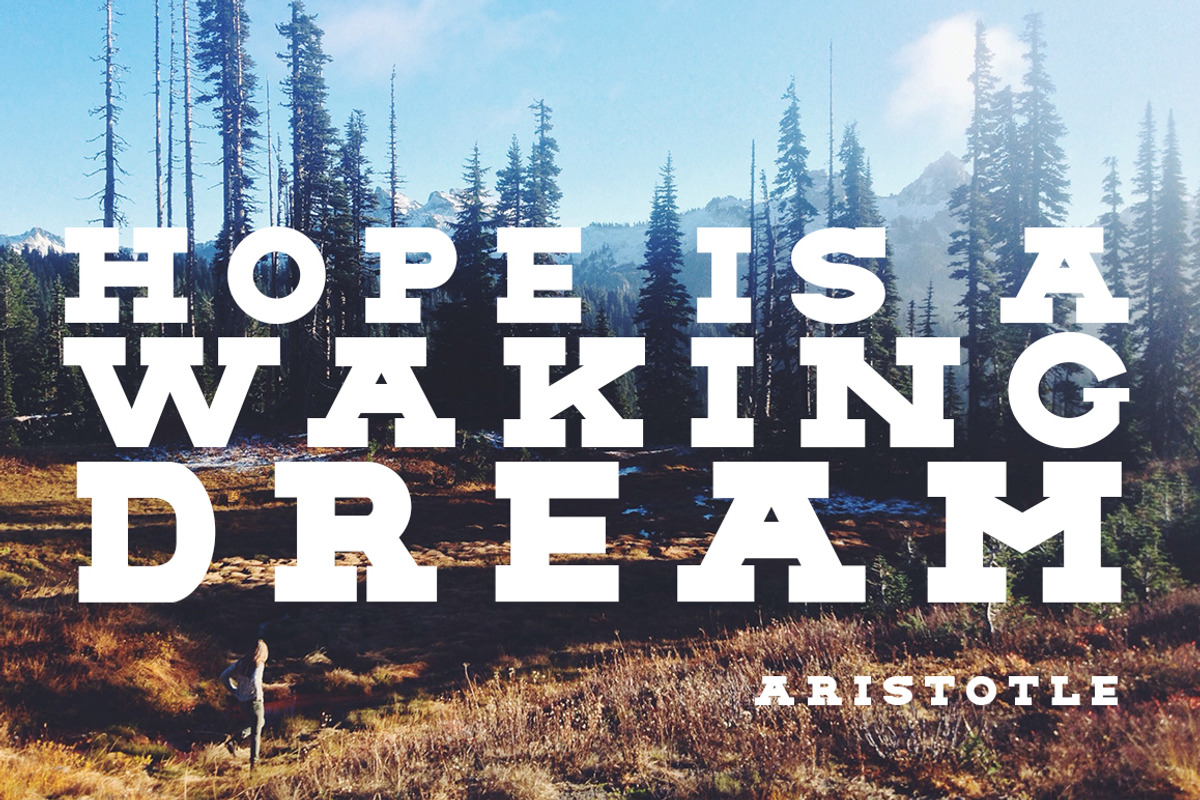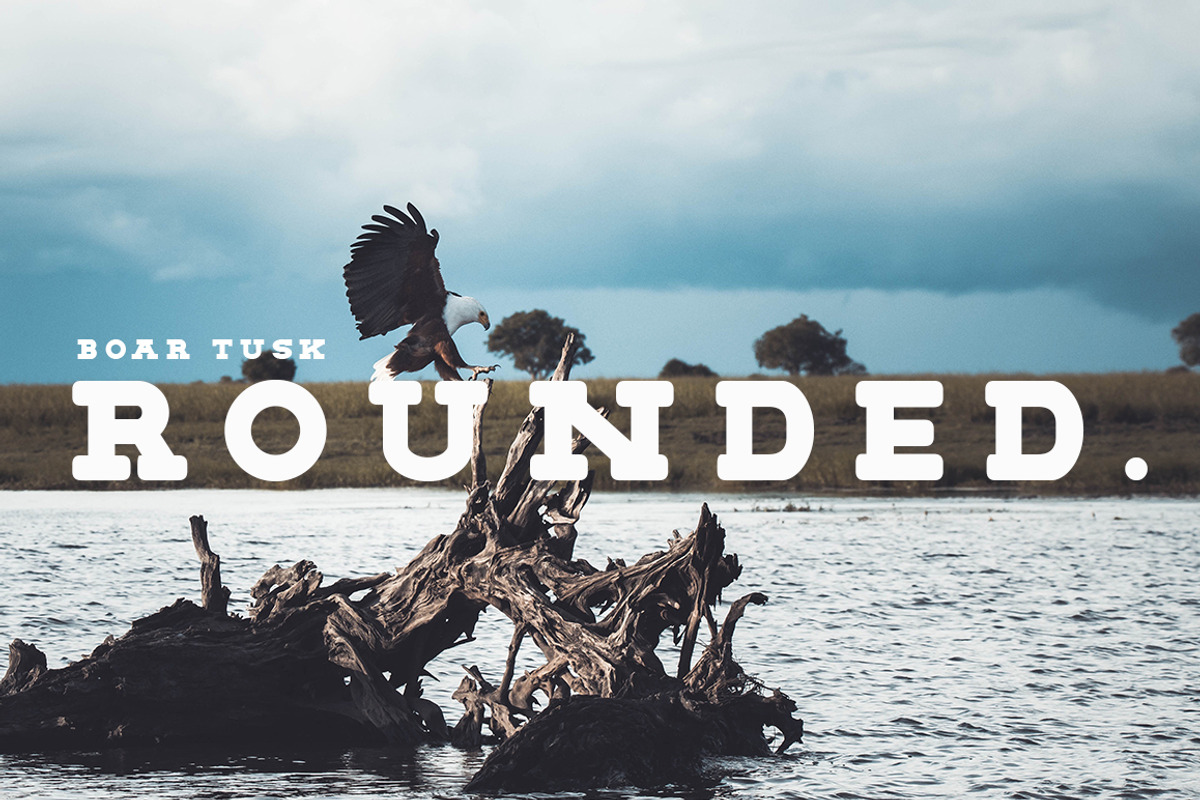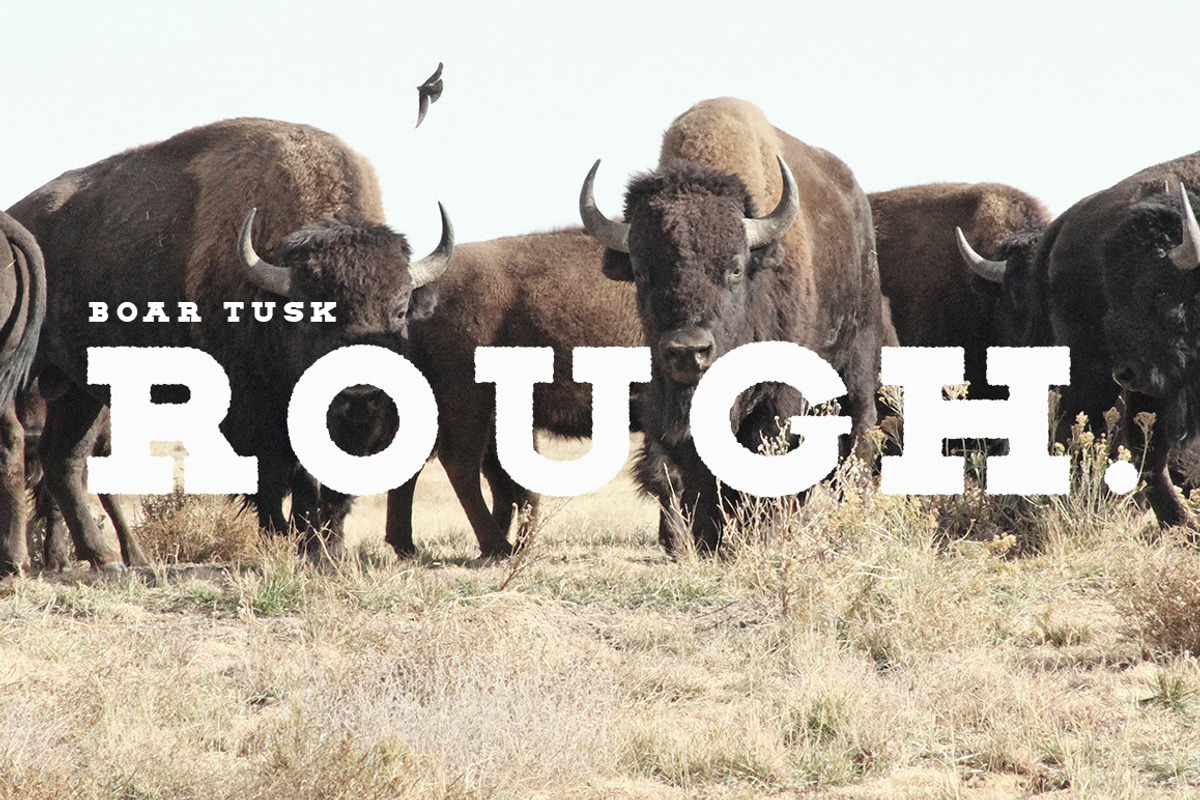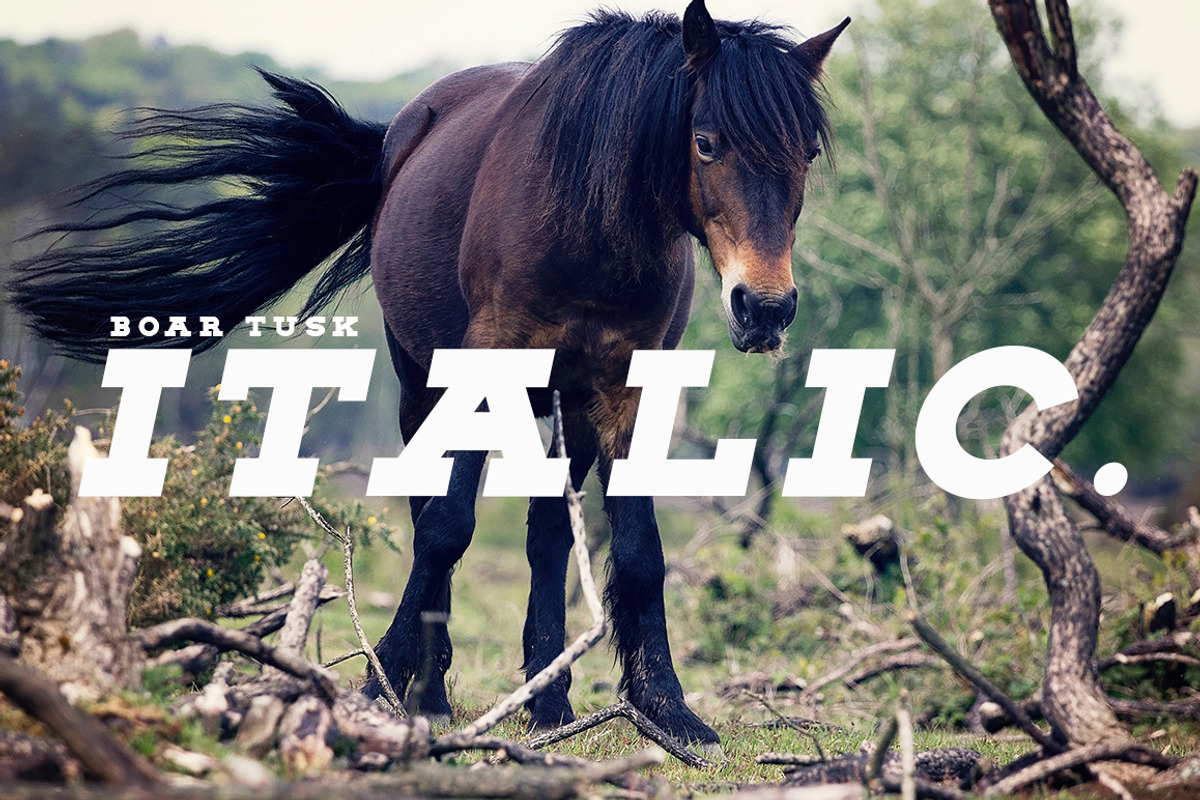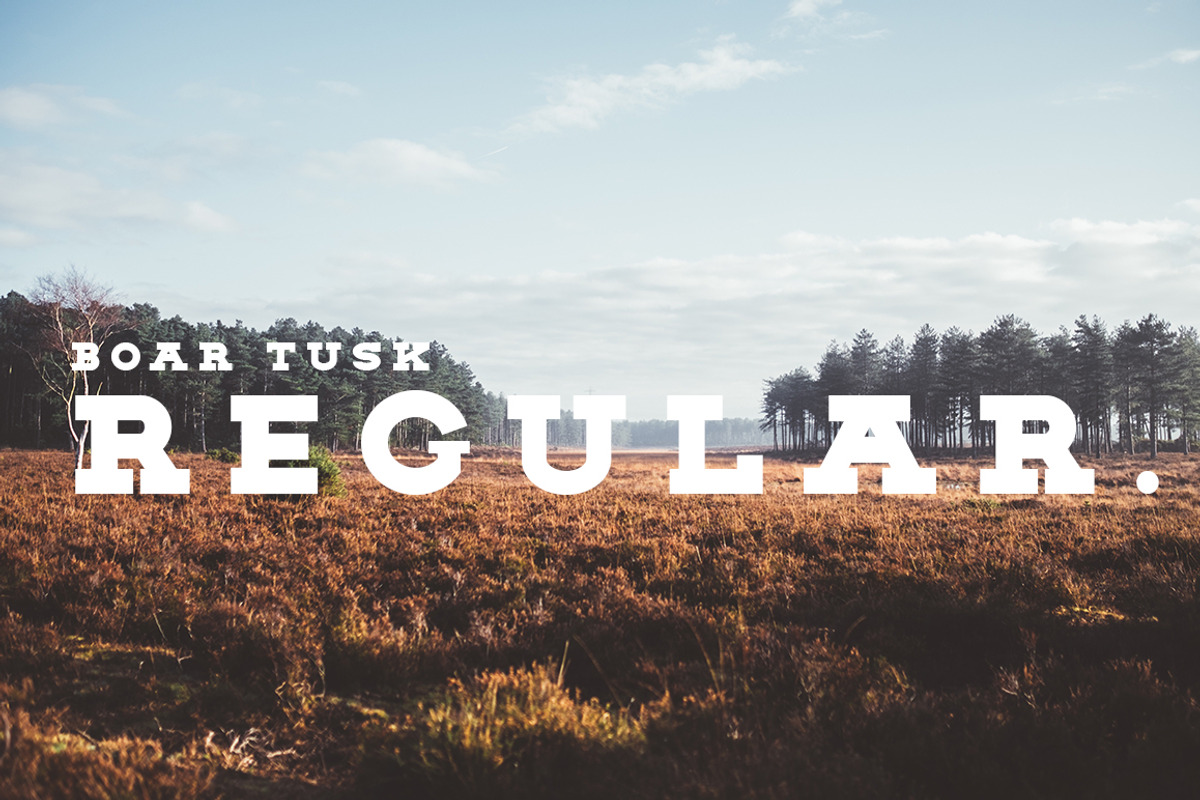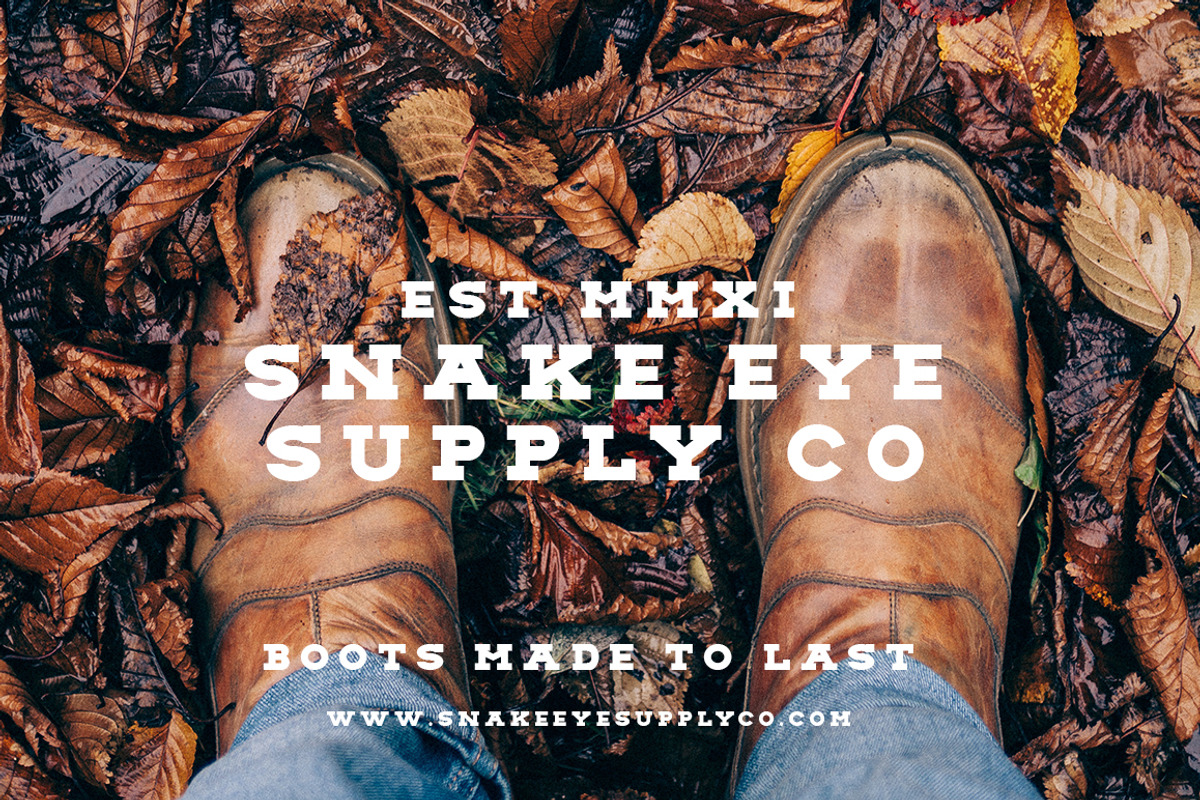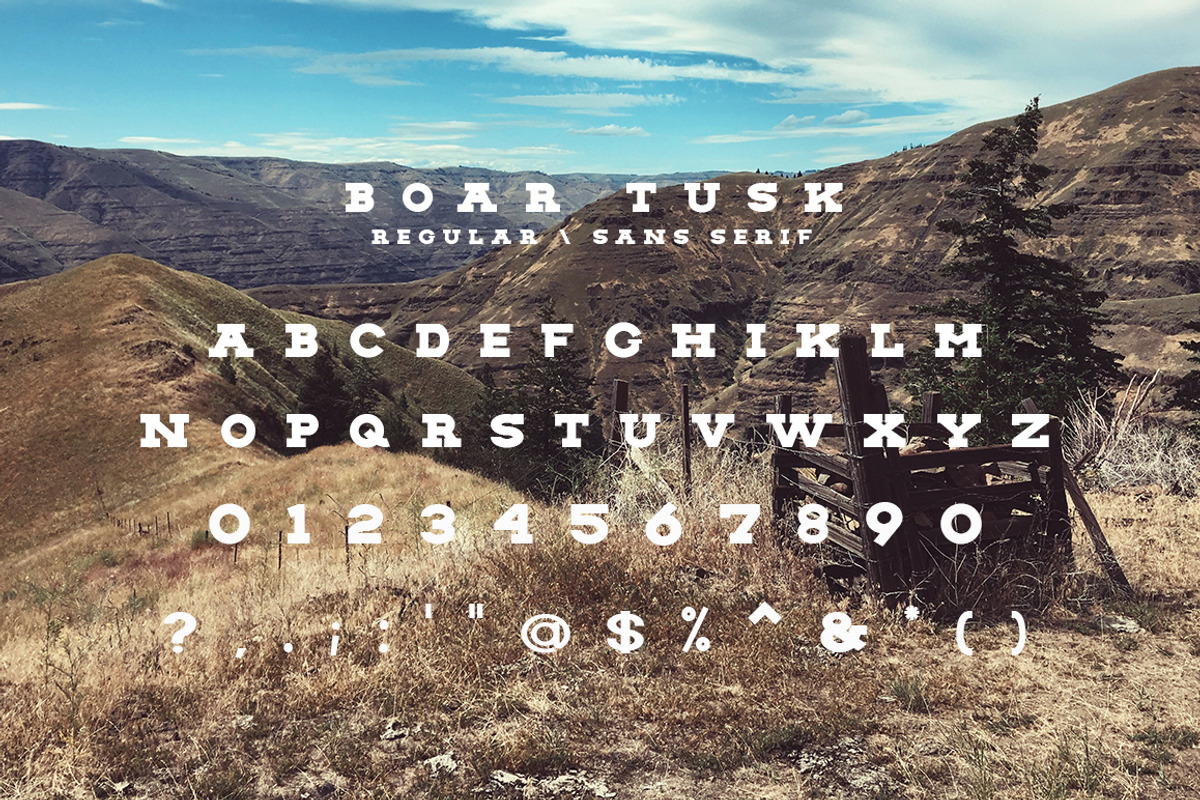
BOAR TUSK Font Family
Boar Tusk is a bold & fearless slab serif collection. Inspired by the wild west but even bigger, Boar Tusk adds a defiant edge to any project.
Boar Tusk comes with its regular, italic, rough and rounded fonts but don't be fooled, they're all daring fonts, meaning your designs will be noticed.
Boar Tusk is a mean display serif. It works for logotypes, signage, and advertising. Don't stop there though, use it for any project you want to stand out.
4 Incredible fonts included (Regular, Rough, Italic, Rounded)
Numbers and punctuation included
Optimized kerning for aesthetic and highly readable texts